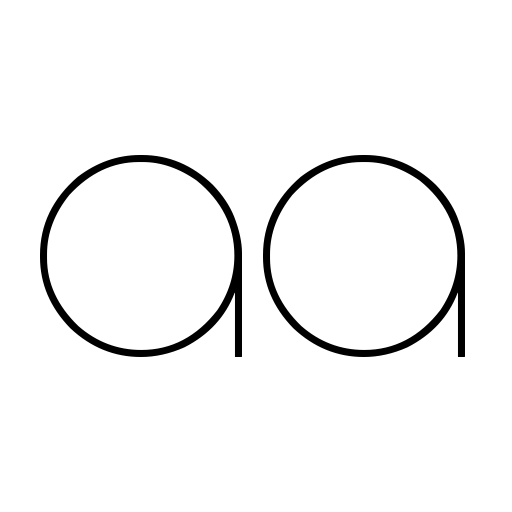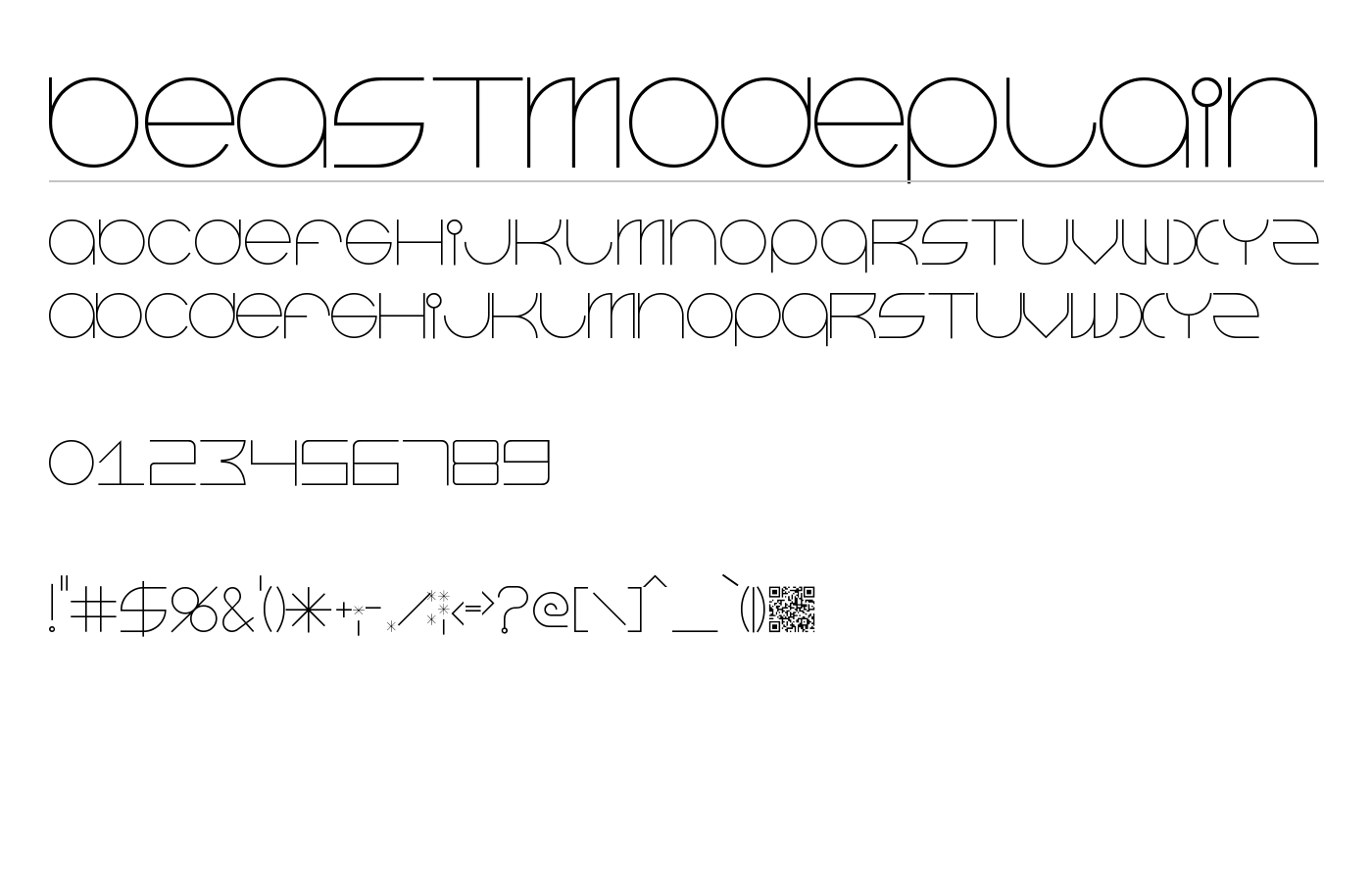
BeastModePlain is a modern, ultra-lightweight sans serif font with a futuristic and geometric style. Its sleek, thin strokes and circular letterforms create a clean and airy feel that works well for contemporary branding, tech-focused designs, and minimalist headlines. This font excels in settings where a sophisticated, forward-thinking look is desired, making it ideal for logos, editorial layouts, and digital interfaces.
BeastModePlain Font
About BeastModePlain Font